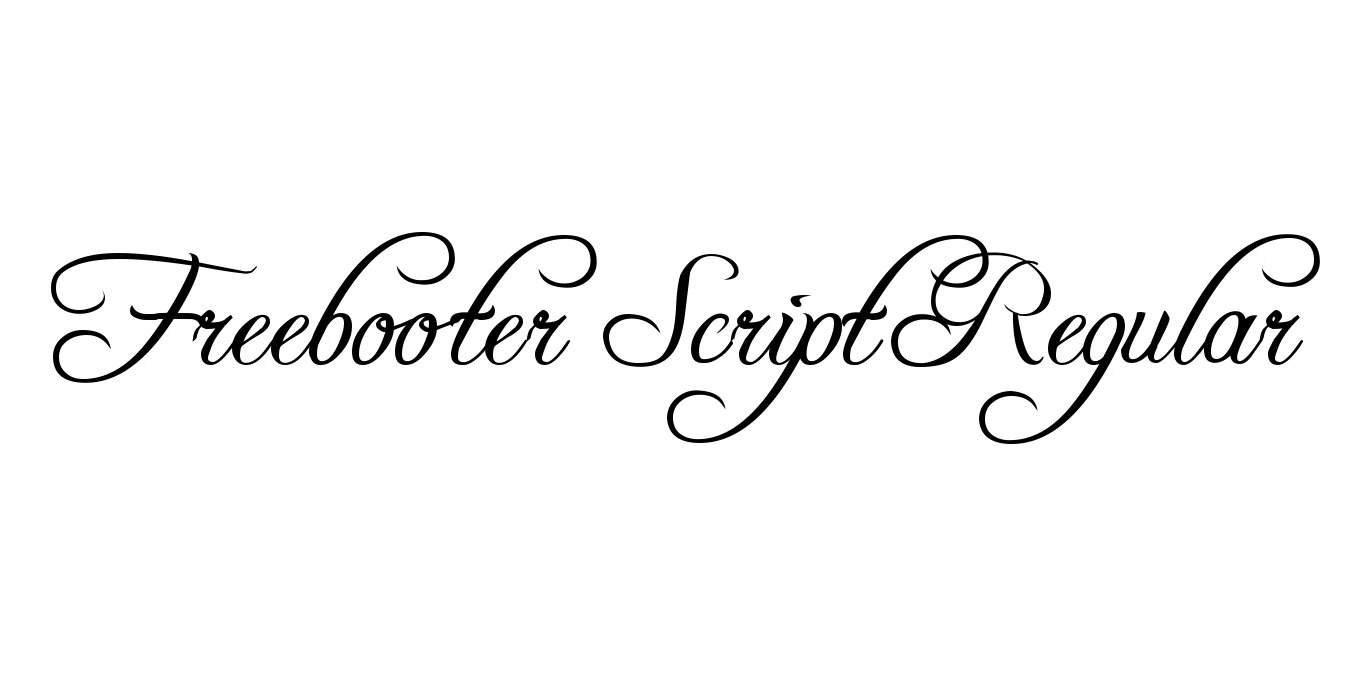
Freebooter Script Regular
Designed by Graham Meade (Apostrophic Lab)
| Font Name | Freebooter Script |
| Designer | Graham Meade (Apostrophic Lab) |
Freebooter Script is a sophisticated and flowing script typeface designed by Graham Meade for the renowned foundry Apostrophic Lab. It is characterized by its elaborate swashes, intricate loops, and a rhythm that mimics classical calligraphy with a modern digital precision. The font stands out due to its extensive character set, which includes numerous ligatures and stylistic alternates that provide designers with significant creative flexibility for formal compositions.
Over the years, Freebooter Script has gained immense popularity in the graphic design community for its ability to convey elegance and luxury. Unlike many decorative scripts that compromise legibility for style, this typeface maintains a clear and readable structure even in its more ornate variations. It has become a go-to choice for high-end branding, digital scrapbooking, and celebratory print media, cementing its status as a timeless asset in the Script category.
Freebooter Script Regular Best Uses
Excellent for formal invitations, place cards, and wedding programs that require a romantic touch.
Perfect for boutique logos, high-end cosmetic packaging, and fashion editorial headers.
Adds an air of authority and tradition to diplomas and formal award certificates.
Provides a warm and personalized feel for holiday cards and special occasion announcements.